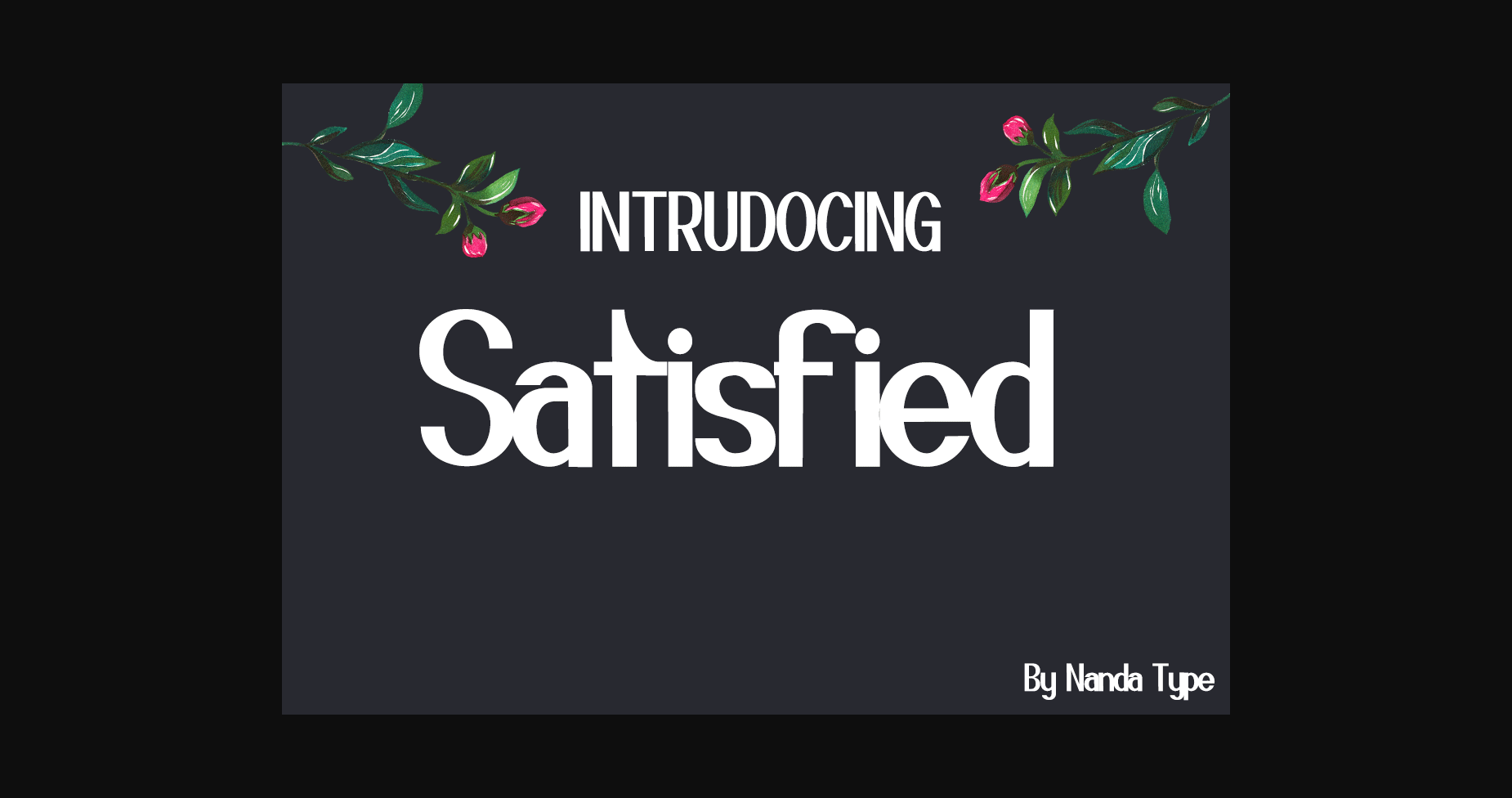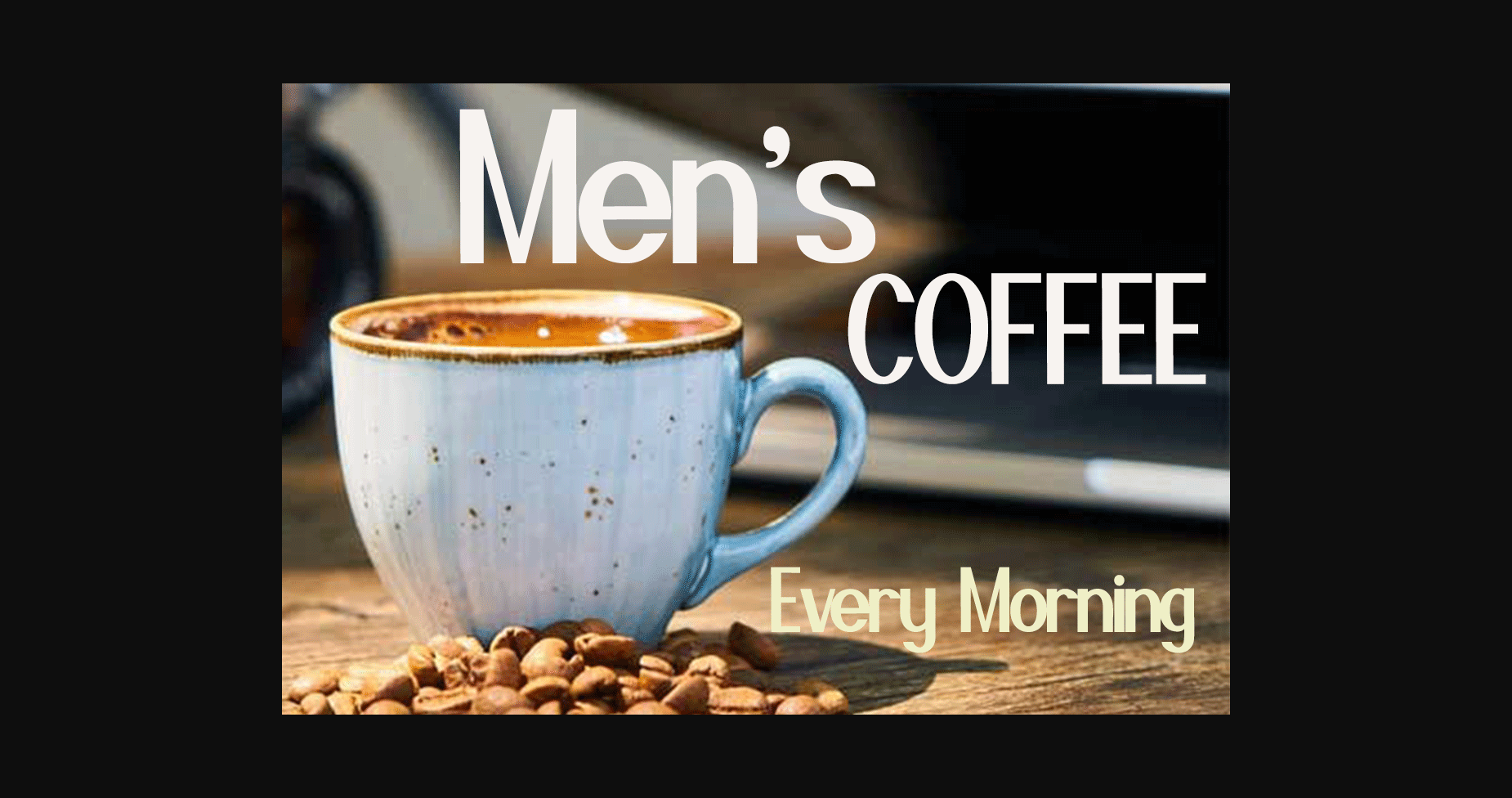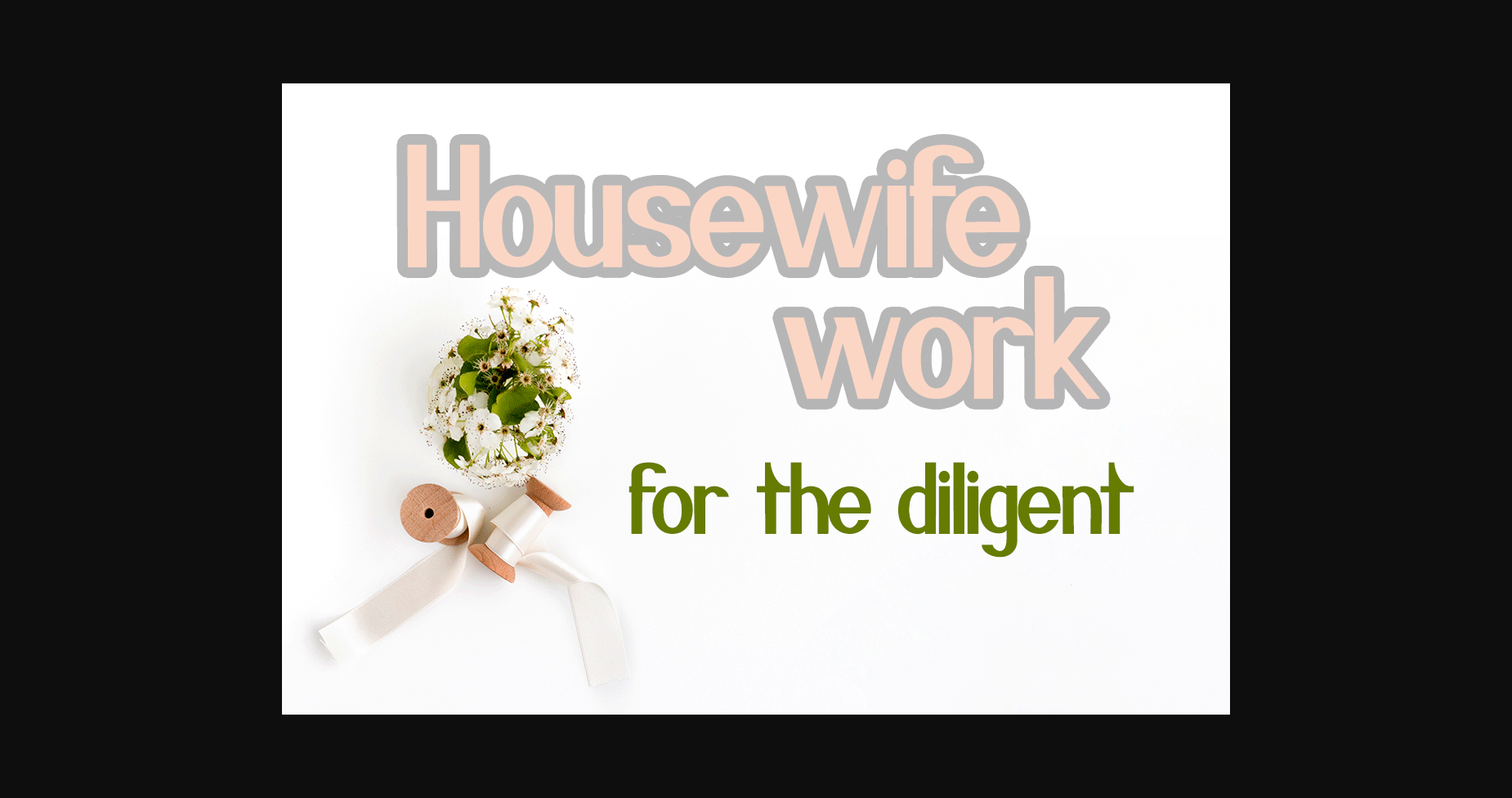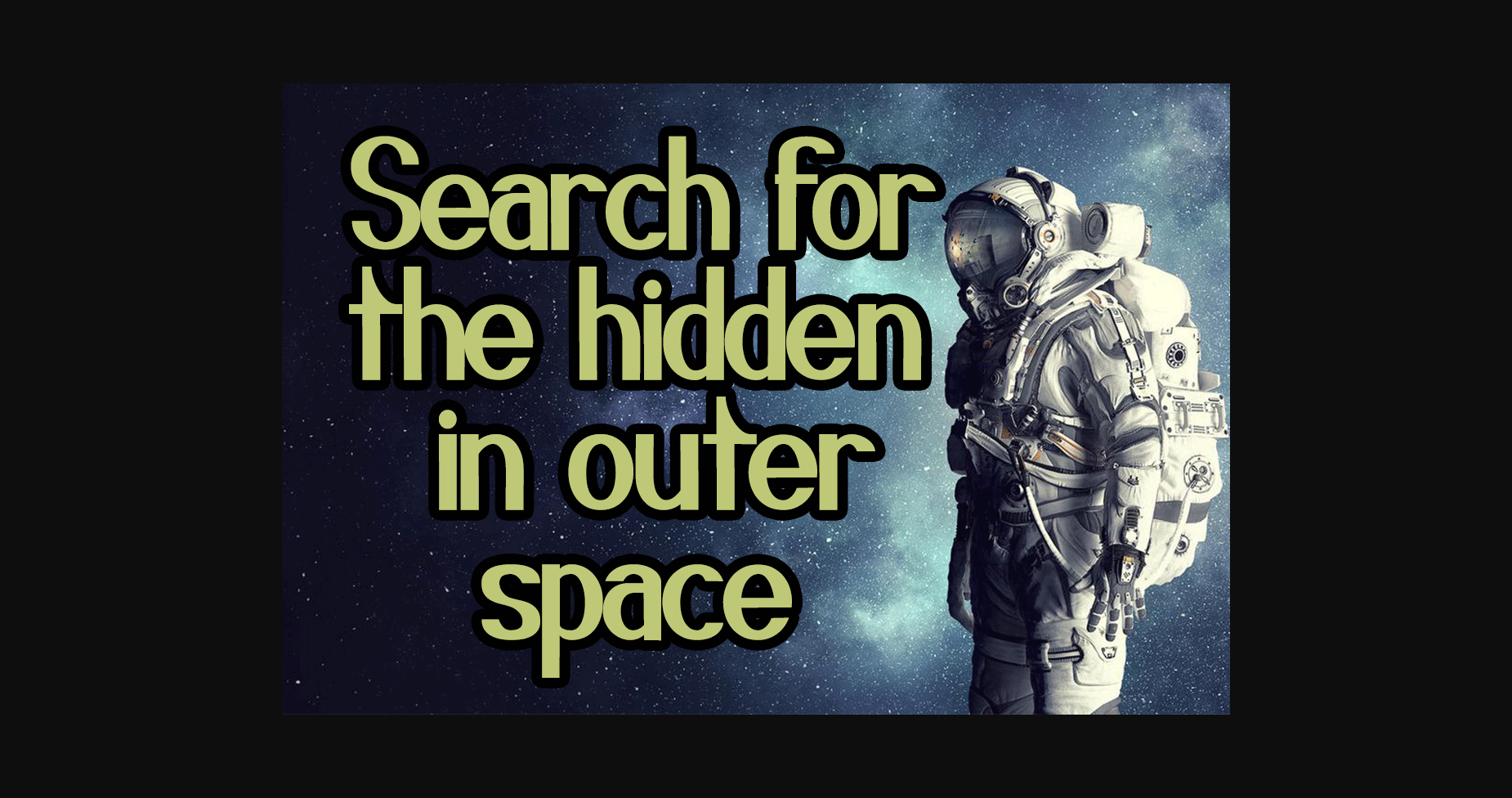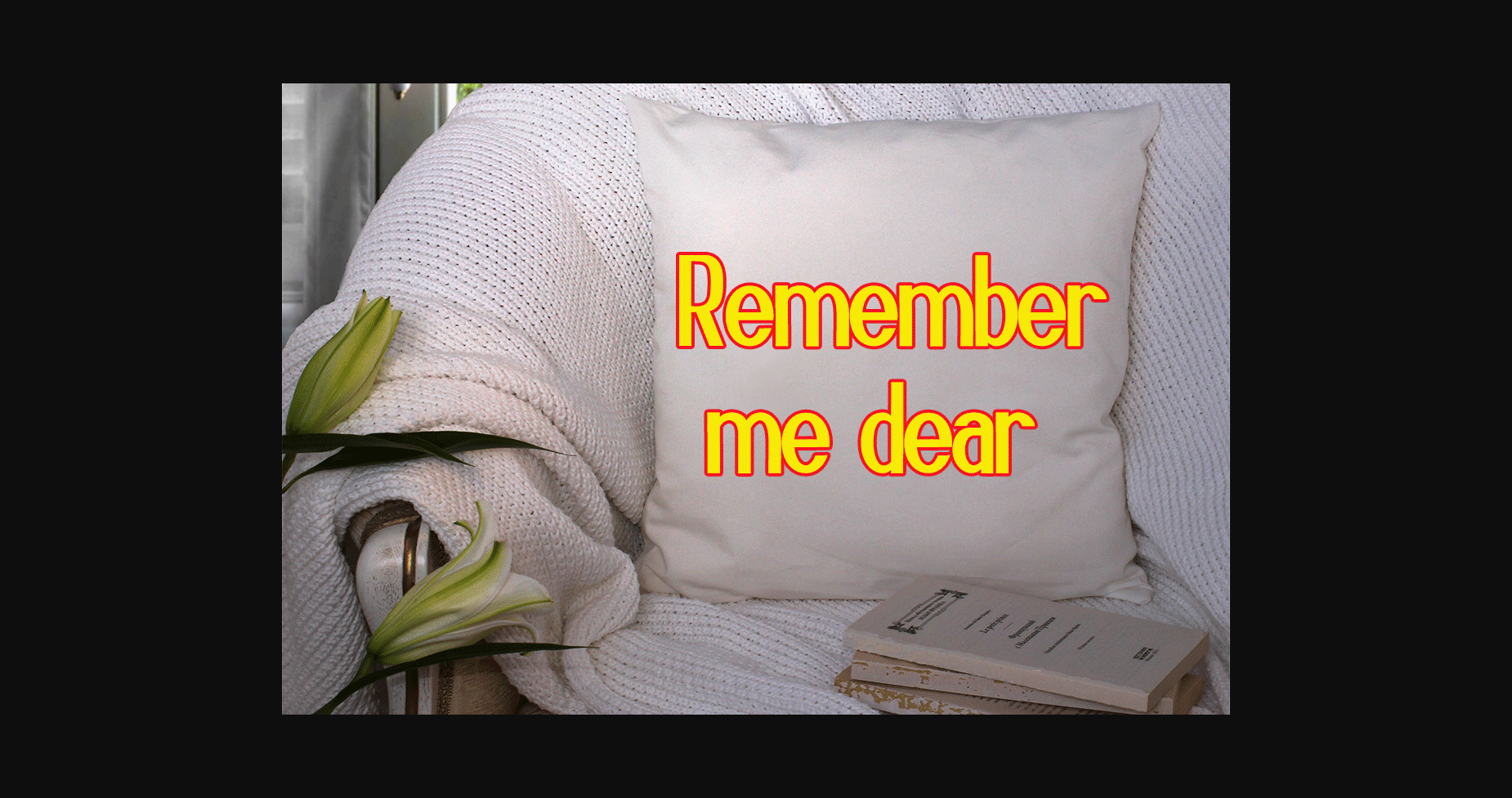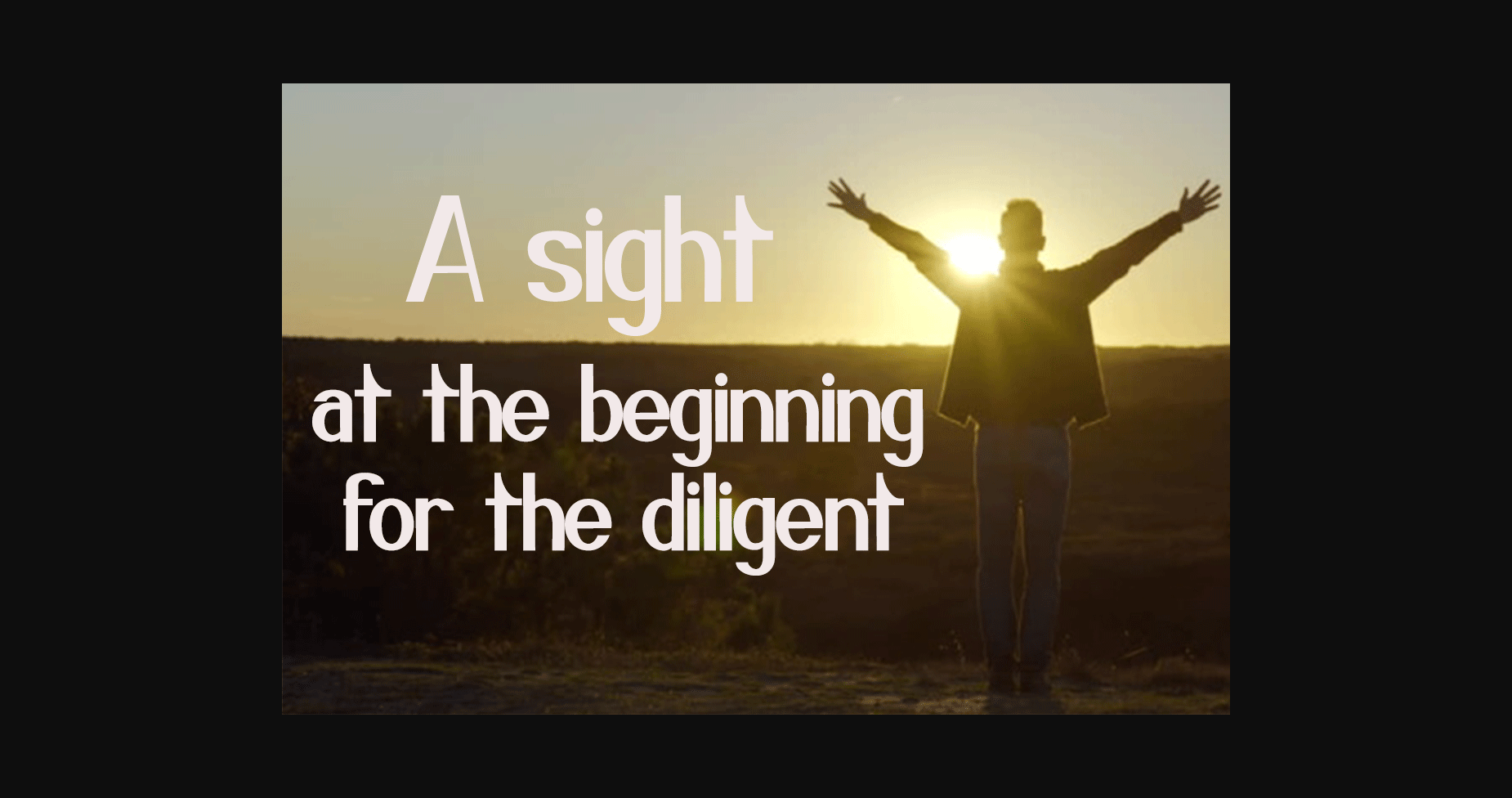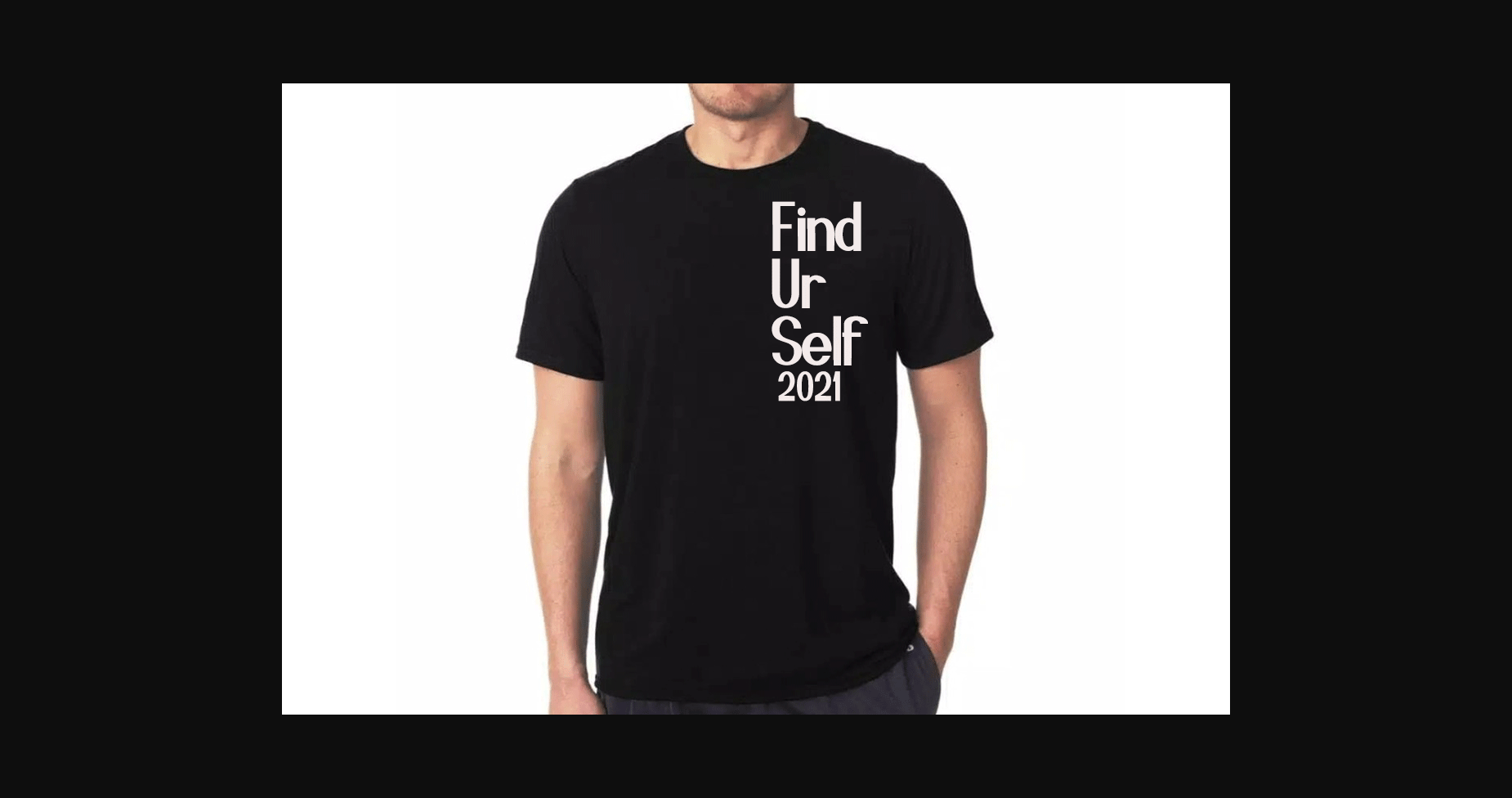
HomeSans Serif FontsSatisfied Font Sans Serif Fonts Satisfied Font FacebookXPinterestWhatsApp 1 of 9 ... Satisfied Font Poster 2... Satisfied Font Poster 3... Satisfied Font Poster 4... Satisfied Font Poster 5... Satisfied Font Poster 6... Satisfied Font Poster 7... Satisfied Font Poster 8... Satisfied Font Poster 9... About Satisfied Font Satisfied is a modern and cool looking sans serif font. it describes taste of simplicity and it can easily be matched to an incredibly large set of projects. DOWNLOAD NOW People also explored Marcost Font Beauty Forest Font Winter Lova Font Minimal Sublimation Mug Mockup Ship Font Comfor Reguler Font Anthems Font Tattoo Studio Font Cupcakes 272 0 TagsSatisfied Font Previous articleAmailane FontNext articleCayano Font LEAVE A REPLY Cancel reply Comment: Please enter your comment! Name:* Please enter your name here Email:* You have entered an incorrect email address! Please enter your email address here Website: Save my name, email, and website in this browser for the next time I comment. Personal Use Free Sybil Green Personal Use Free Read more about this font Cheese Matcha Font Personal Use Free Read more about this font Sunshine Tropical Font Personal Use Free Read more about this font Arnitta Callina Personal Use Free Read more about this font BLOG Using Fonts in Digital Marketing: Tips to Strengthen Your Brand Identity In the realm of digital marketing, every visual element plays a crucial role in shaping a brand's identity, and fonts are no exception. The... Free vs Paid Fonts: Why Investing in Premium Fonts Is Worth It How to Cut Any Font on Cricut: Convert a Font to SVG (Free) Elegant Wedding Invitation Fonts – Handwritten & Script Fonts